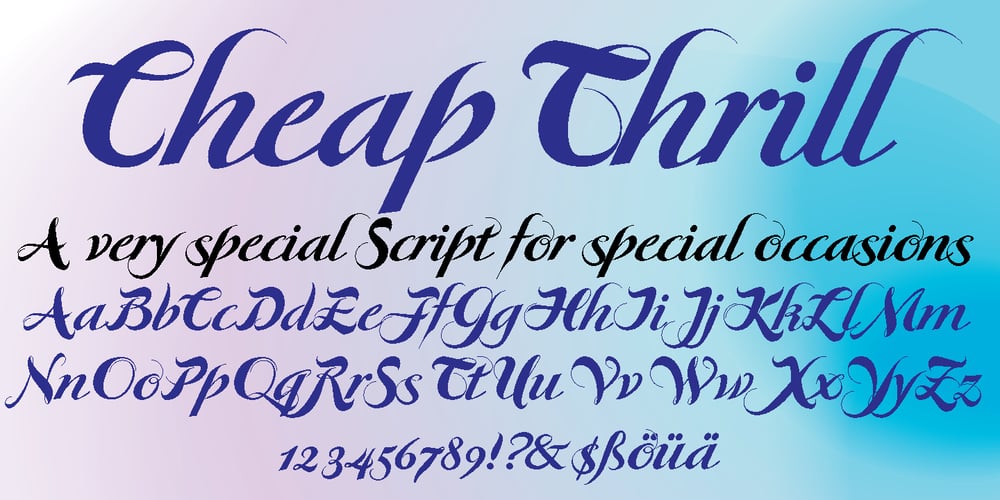
Cheap Thrill Font Family was designed by Gert Wiescher and published by Autographis. Cheap Thrill contains 1 styles and family package options. CheapThrill is a very elegant and expressive script in the tradition of the 70s with a touch of flower power.